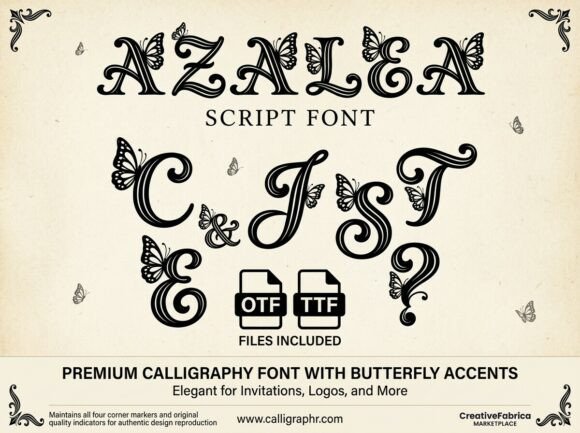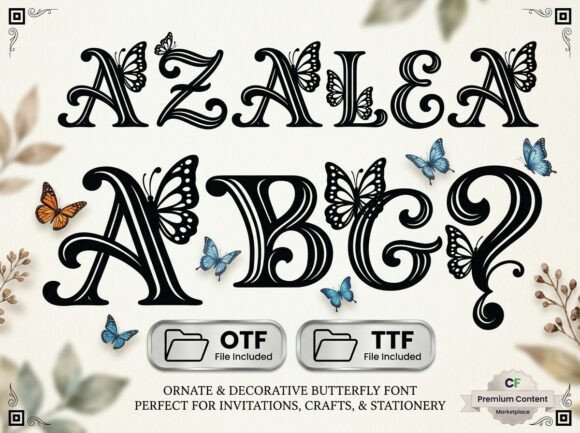
The Moment You Need a Font that Stands Out
Have you ever stared at a blank design canvas, feeling the weight of creativity bearing down on you? The blank page stares back, taunting you with its emptiness. That’s when the magic happens – you need a font that’s not just a font, but a statement. A font that screams, “I’m here, and I’m making a statement!” Enter the Azalea Font, a stunning decorative display font designed to be the center of attention.
| 📌 Product Name | Azalea Font |
| 👤 Author | LINEART3 |
This beautiful font is perfect for designers who crave that extra oomph in their work. With its unique artistic elements and strong visual personality, Azalea Font is the perfect addition to any design project. Whether you’re working on bold headlines, artistic logos, or creative packaging, this font will give your work that extra polish and professionalism it needs to shine.
Azalea Font Key Features
- Font Style: Script, Calligraphy
- Character Set: Latin, Cyrillic, Greek, and other languages (check with the font vendor for the full list)
- Unique Characteristics: Hand-drawn, floral design, ideal for creative projects, wedding invitations, and special occasions
Azalea Font Review
Overall, I was quite excited to dive into the Azalea Font, as it promised a beautiful, elegant aesthetic. ✨ The font does indeed deliver on that promise, boasting a lovely balance of curvaceous lines and classic charm. It’s perfect for projects where you need to convey sophistication and refinement.
One of the standout features of Azalea is its versatility. ✨ It’s suitable for both print and digital applications, and can be easily used in a variety of contexts, from logos to body text. The font also comes with a range of weights and styles, giving you plenty of options to experiment with.
Limits and Drawbacks
- ⚠️ Limited expressiveness: While Azalea is great for conveying elegance, it may not be the best choice for projects that require a lot of emotional depth or personality.
- ⚠️ Limited language support: Unfortunately, Azalea only supports Latin-based languages, which may be a limitation for projects that require support for languages like Arabic or Chinese.
Overall, I think Azalea is a solid choice for designers looking to add some classic charm to their projects. While it may not be the most exciting or expressive font, it’s reliable and easy to work with. If you’re looking for a timeless, sophisticated aesthetic, Azalea is definitely worth considering.
Tips for Getting the Most Out of Azalea Font
Use the Azalea Font in combination with other design elements, such as images and graphics, to create a visually appealing design. Experiment with different font sizes and styles to add emphasis and hierarchy to your design. Consider using the Azalea Font in a bold or italic style to add texture and interest.
The Azalea Font is ideal for use in branding, marketing materials, and design projects that require a unique and elegant touch. It is particularly well-suited for use in logos, business cards, and other print materials.